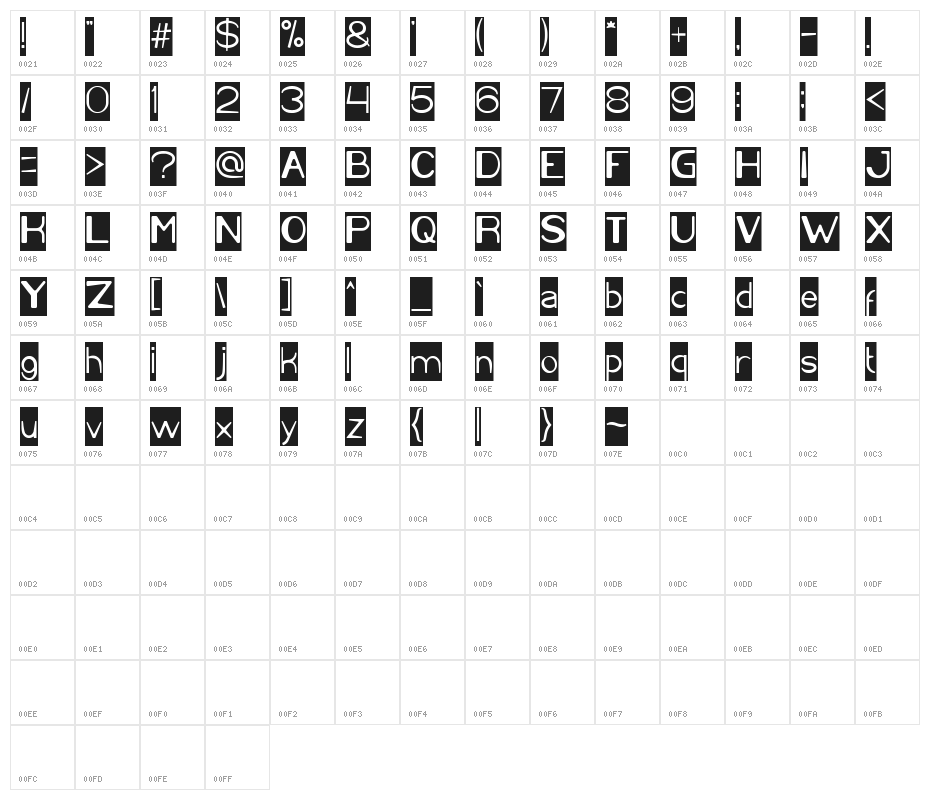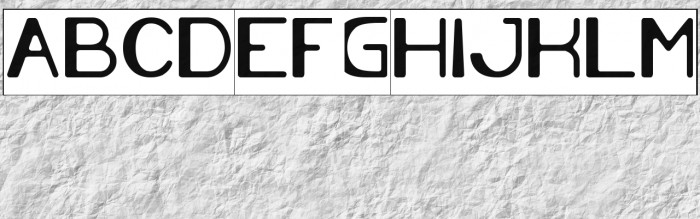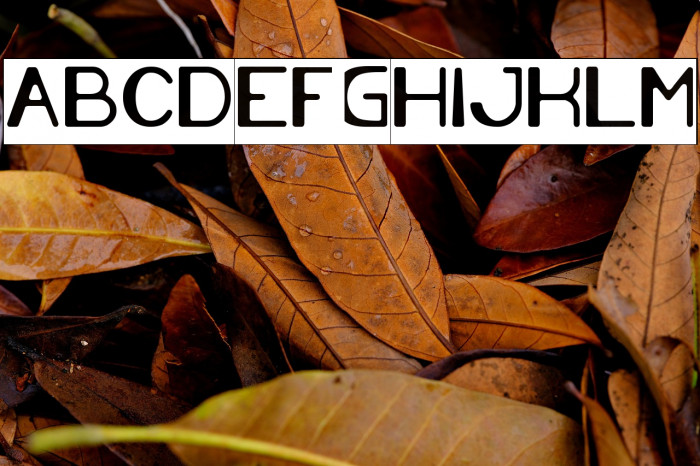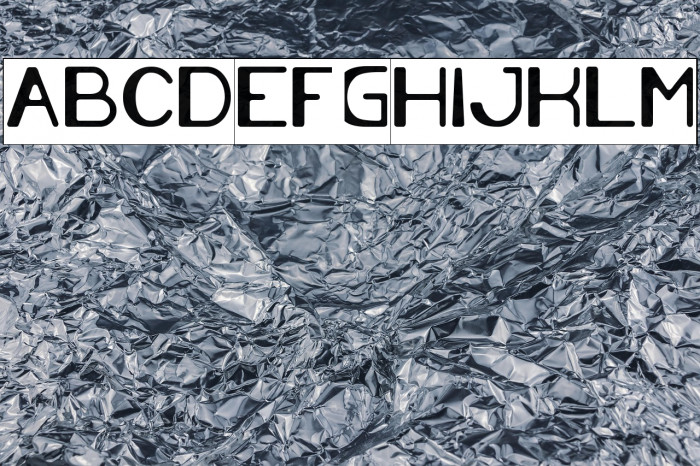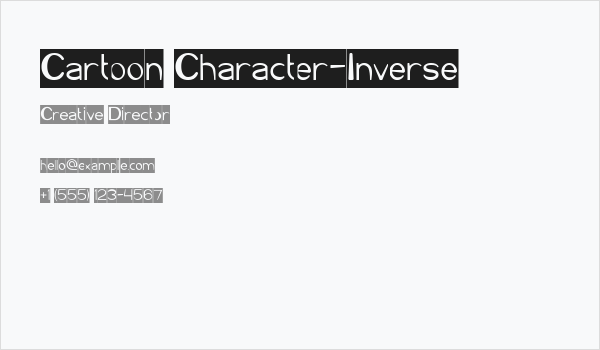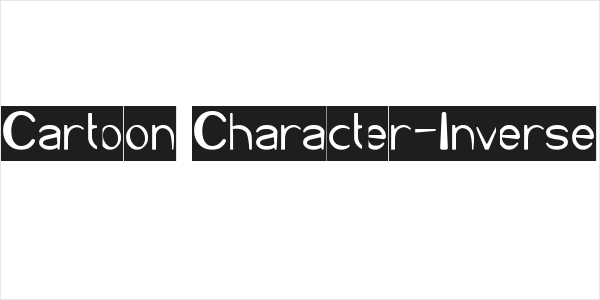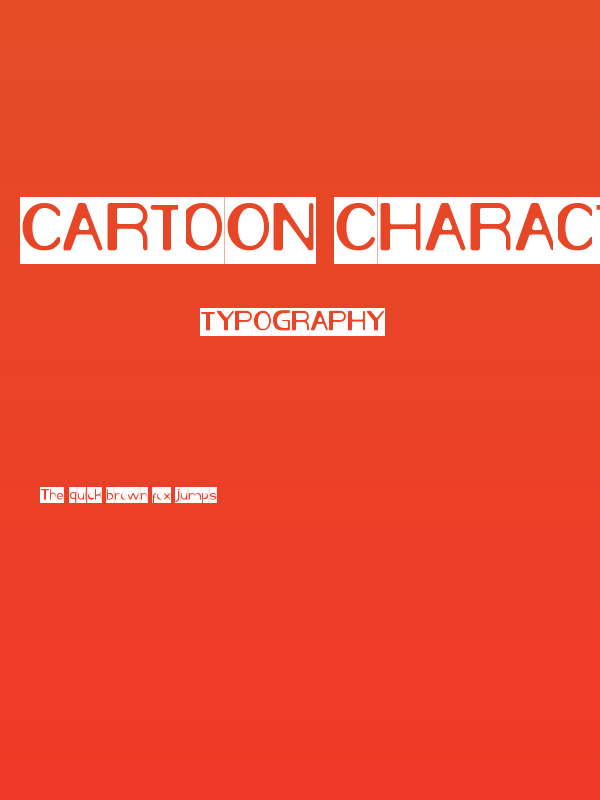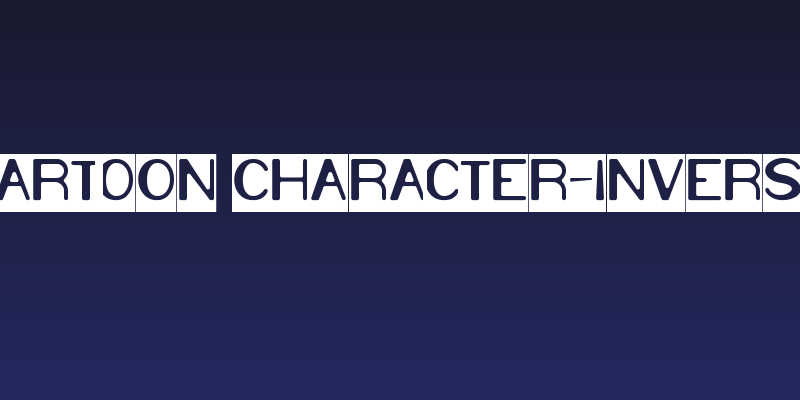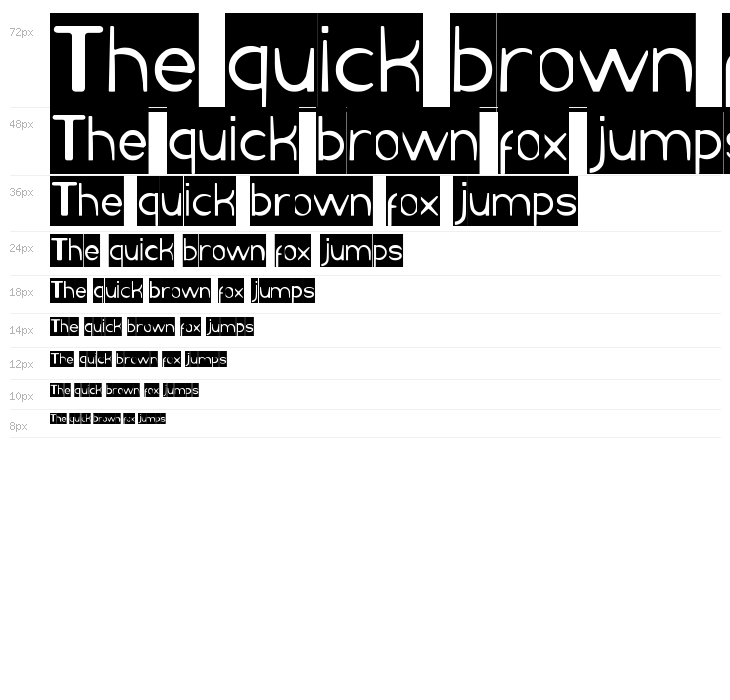
Cartoon Character-Inverse Font
Cartoon Character-Inverse Description
This font features a playful and rounded design, characterized by its bold and friendly appearance. The letters have a consistent stroke width, giving it a uniform look. The uppercase letters are slightly taller than the lowercase, maintaining a balanced proportion. The numerals are clear and easily distinguishable, while the special characters are creatively styled to match the overall theme. The font's design is reminiscent of cartoon or comic book styles, making it ideal for projects that require a fun and approachable aesthetic.
| Overall Style | Playful, Cartoonish |
| Proposed Projects | Ideal for children's books, comic strips, playful branding, and educational materials. |